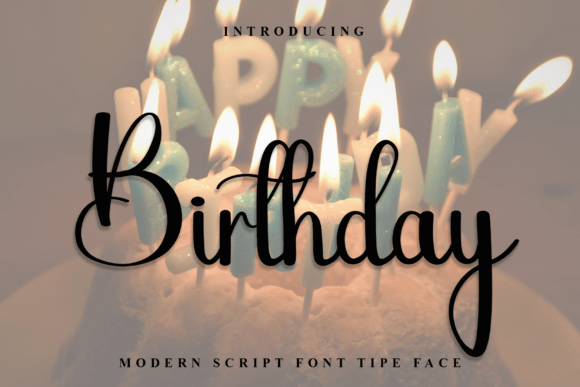
The Birth of a Perfect Font: A Designer’s Delight
I still remember the time I was working on a birthday party invitation for my niece. I had the design all planned out, but I just couldn’t find the right font to match the playful and festive vibe I was going for. I scoured through font libraries, but nothing seemed quite right. That was until I stumbled upon the Birthday Font. Its round, playful strokes and charming, hand-drawn aesthetic instantly won me over. It was like the font was made for that project! ✨
- ✨ The casual and creative feel of the font makes it perfect for personal projects and social media graphics.
- ✅ The font’s warmth and friendliness evoke a sense of approachability and fun.
While the Birthday Font is a gem, it’s not without its quirks. For instance, ⚠️ some users might find the font’s playfulness too casual for certain projects. Additionally, 🤔 the font’s limited character set might not be suitable for projects requiring a wide range of special characters.
The Designer Inspiration Behind Birthday Font
The Birthday Font was designed with the intention of creating a font that captures the warmth and playfulness of a birthday celebration. Its creator, a freelance designer with a passion for hand-drawn typography, aimed to craft a font that would make designs feel more approachable and fun. The result is a font that exudes a sense of joy and festivity, perfect for making your designs stand out.
Q: Is Birthday Font suitable for body text?
A: While the Birthday Font is perfect for headings and titles, it may not be the best choice for body text due to its playful and decorative nature. It’s best used for short texts or design elements that require a personal touch.